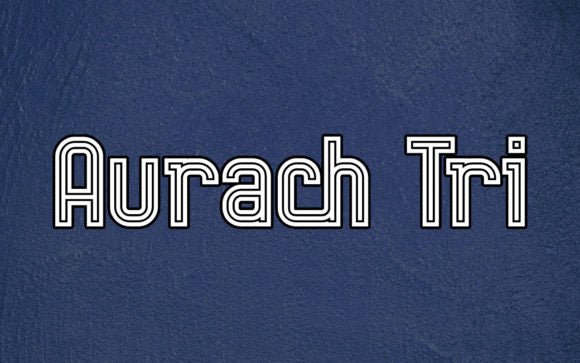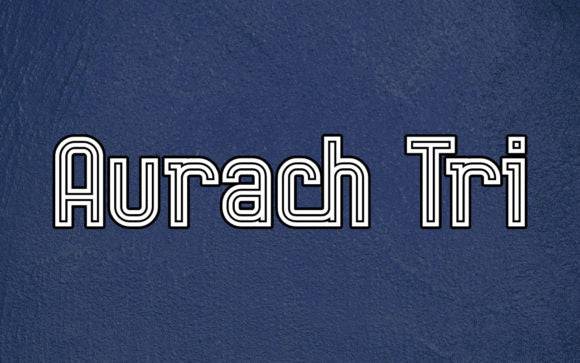
Aurach Tri, Geometric Triple-Lined Display Font
Aurach Tri is a cool, retro‑inspired display font designed to combine clean lines with vintage‑techno vibes — giving your designs a modern yet nostalgic feel. The font’s geometry and style make it stand out for headings, logos, branding, posters, or merchandise designs that call for a bold, stylish presence. Whether you are working on apparel, print, or digital graphics, Aurach Tri delivers versatility with character.
- Bold logos and branding for boutiques, shops, or creative businesses
- Retro‑style T‑shirt or merch designs with a modern twist
- Posters, flyers, and promotional graphics with eye‑catching typography
- Labels, signage, or packaging for products needing distinctive display text
- Social media graphics, web headers, or digital art using a clean, modern‑retro look
Aurach Tri gives you a clean, retro‑tech display font that blends vintage character with modern usability. Its geometric lines and bold presence make it excellent for designs that need to grab attention — whether on printed merch, signage, or digital media. As a free resource with a license allowing commercial use, it’s a cost‑effective way to elevate your creative or business projects without additional expense.